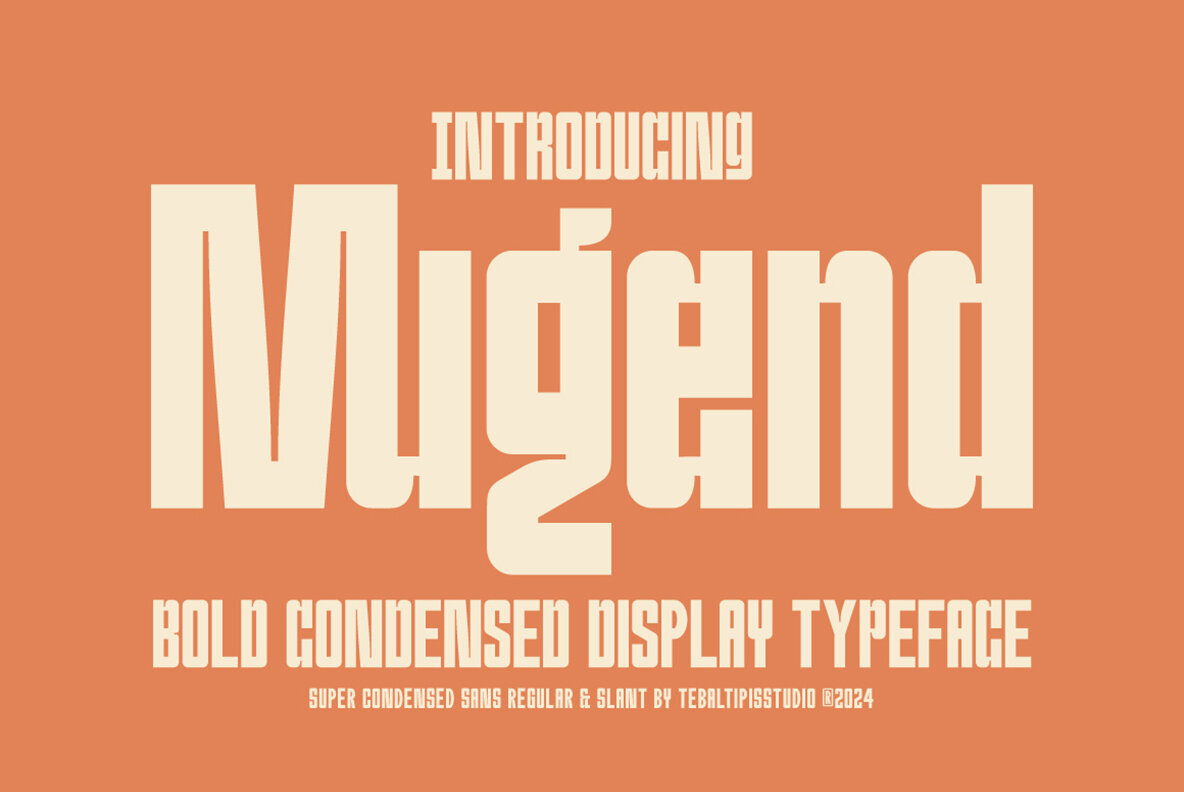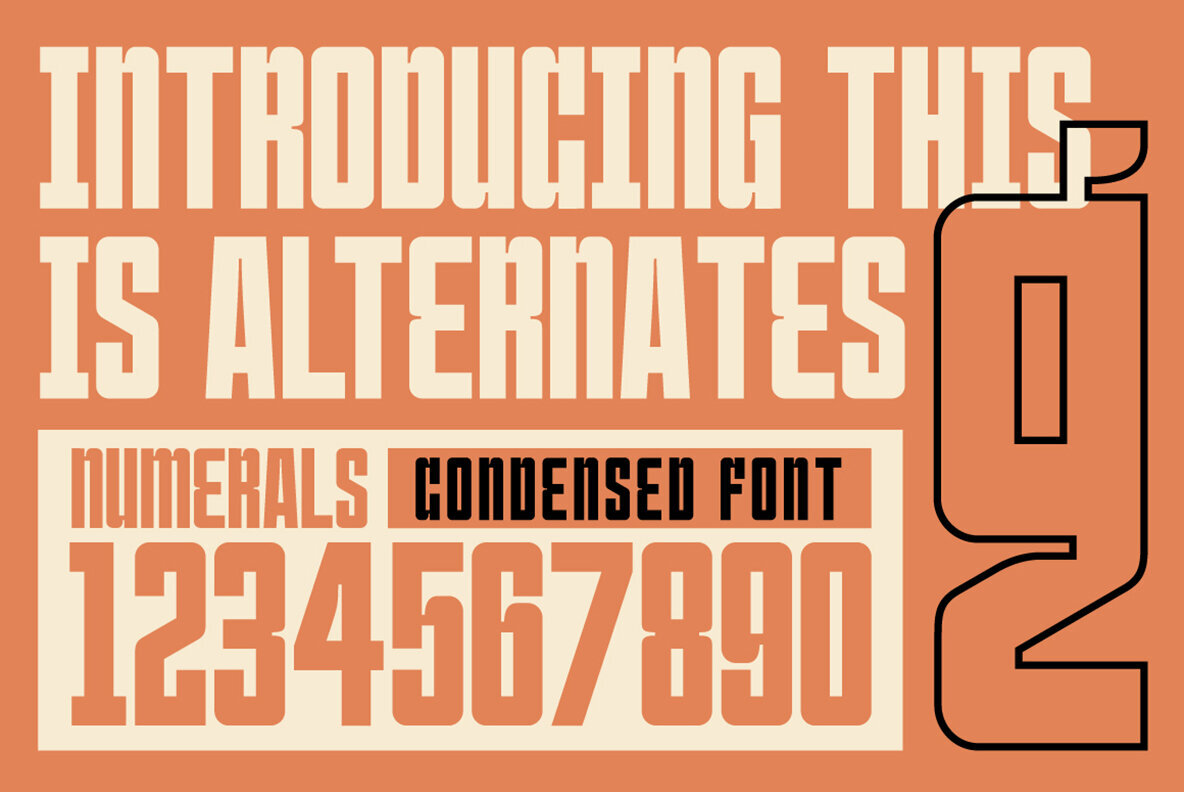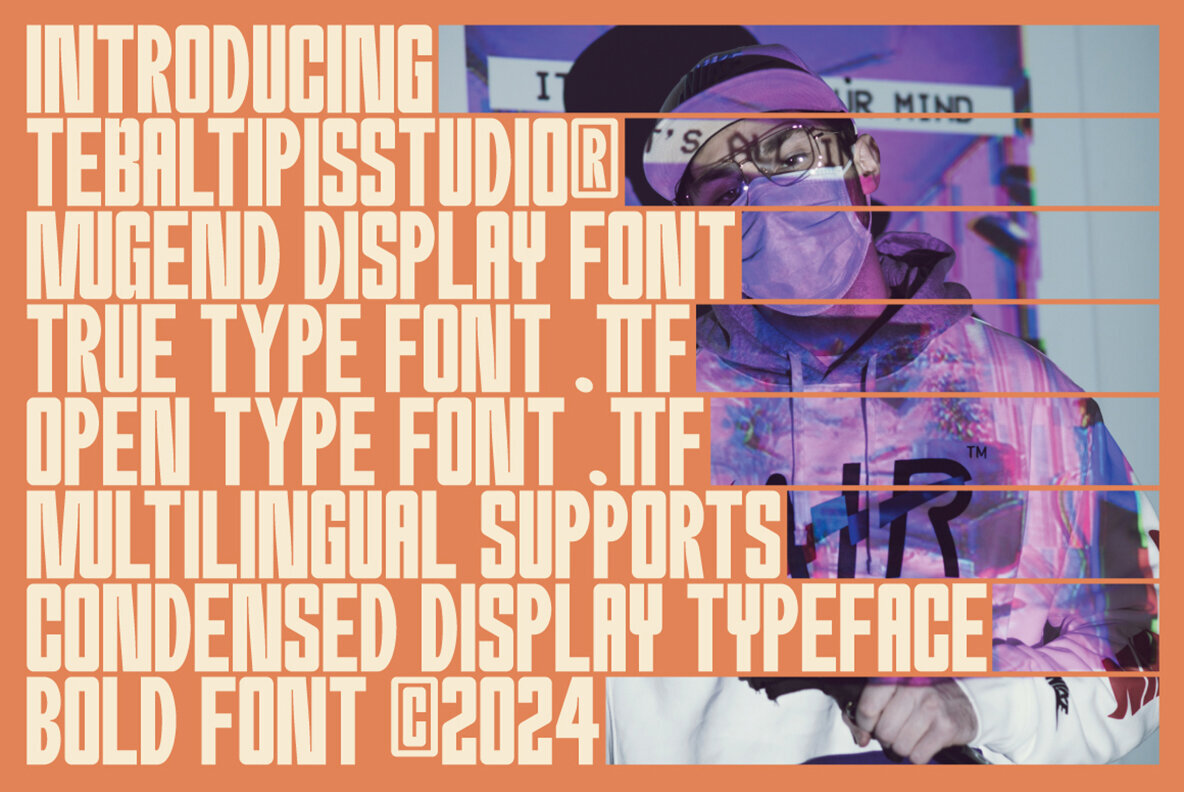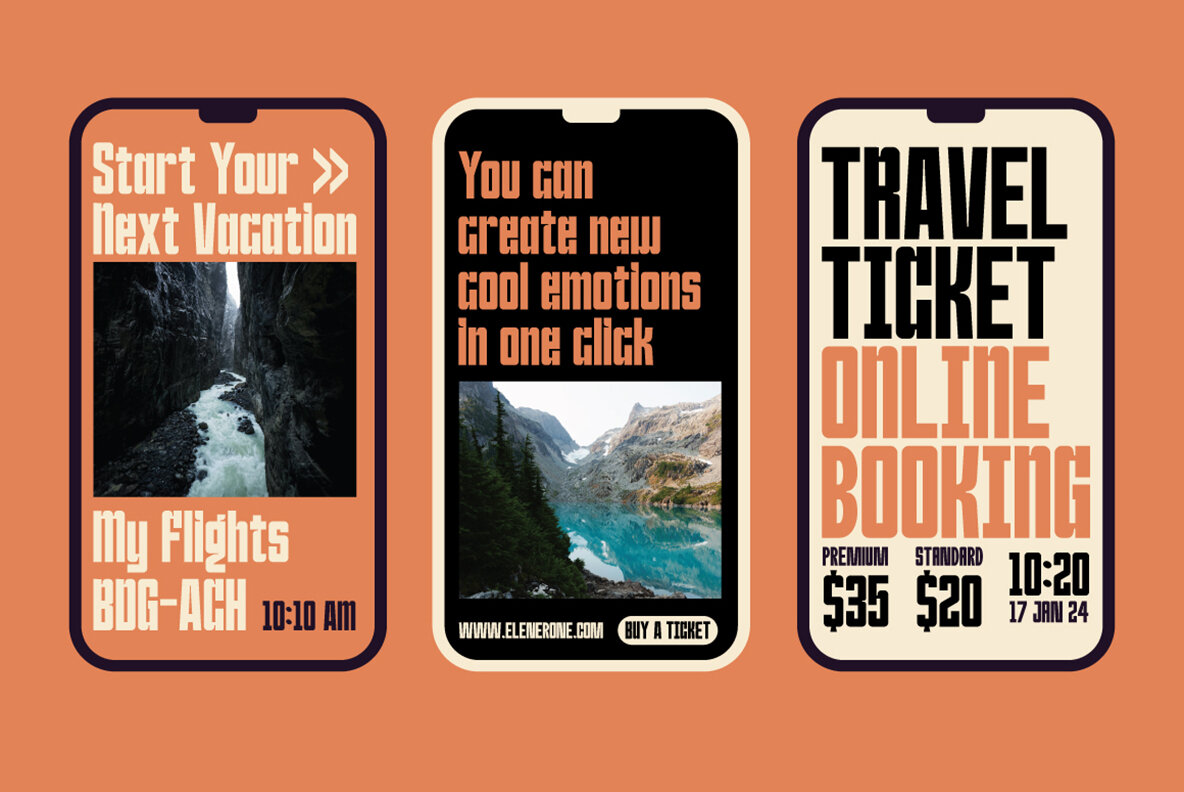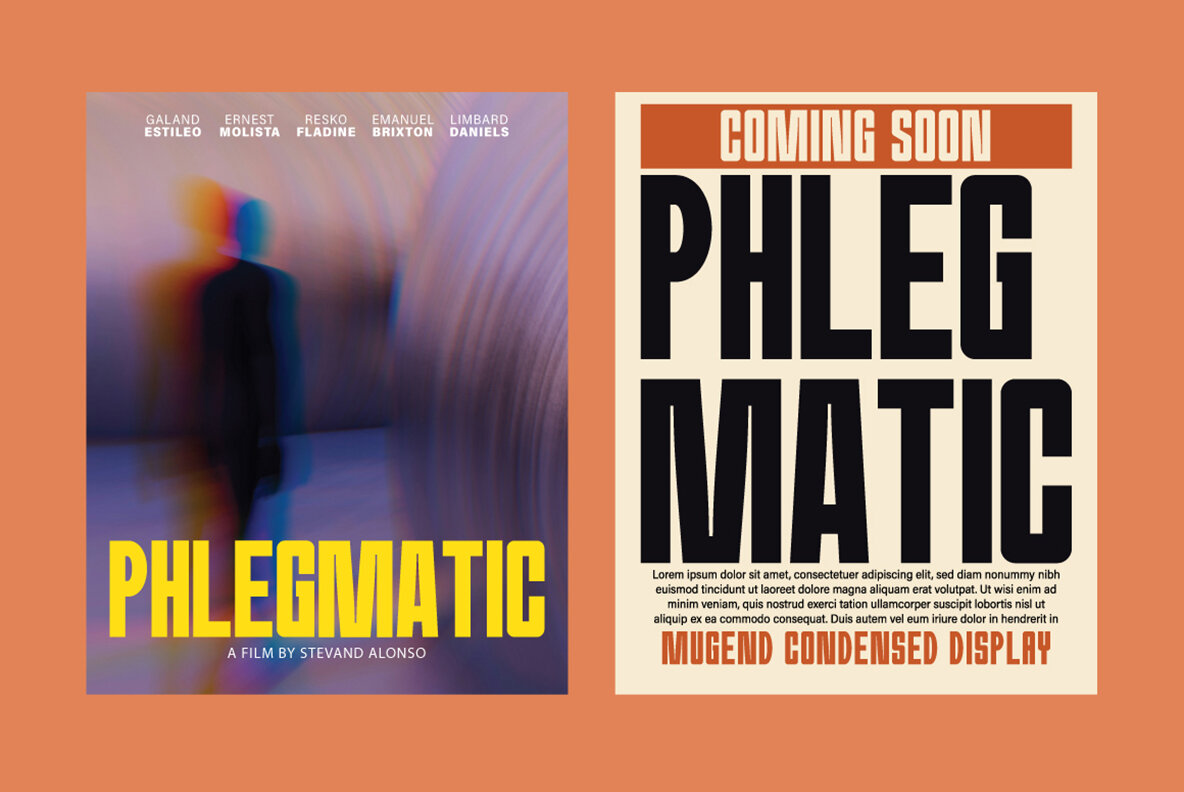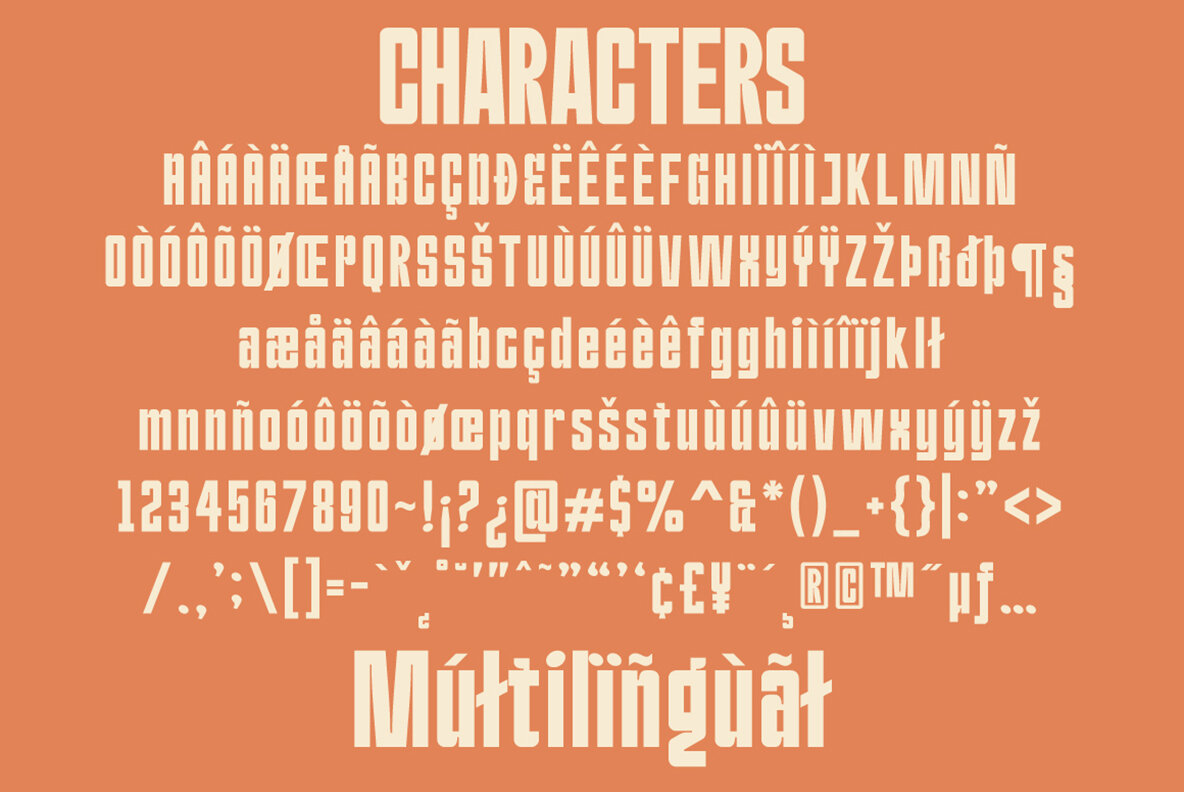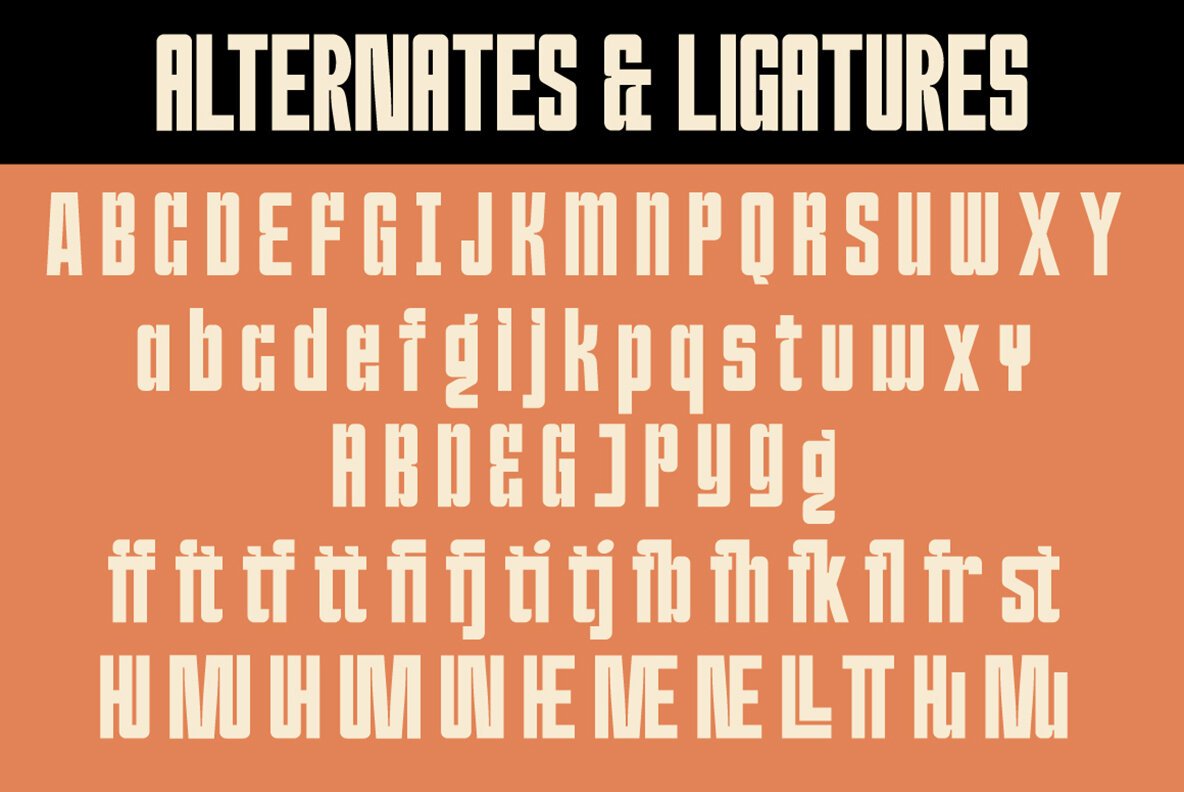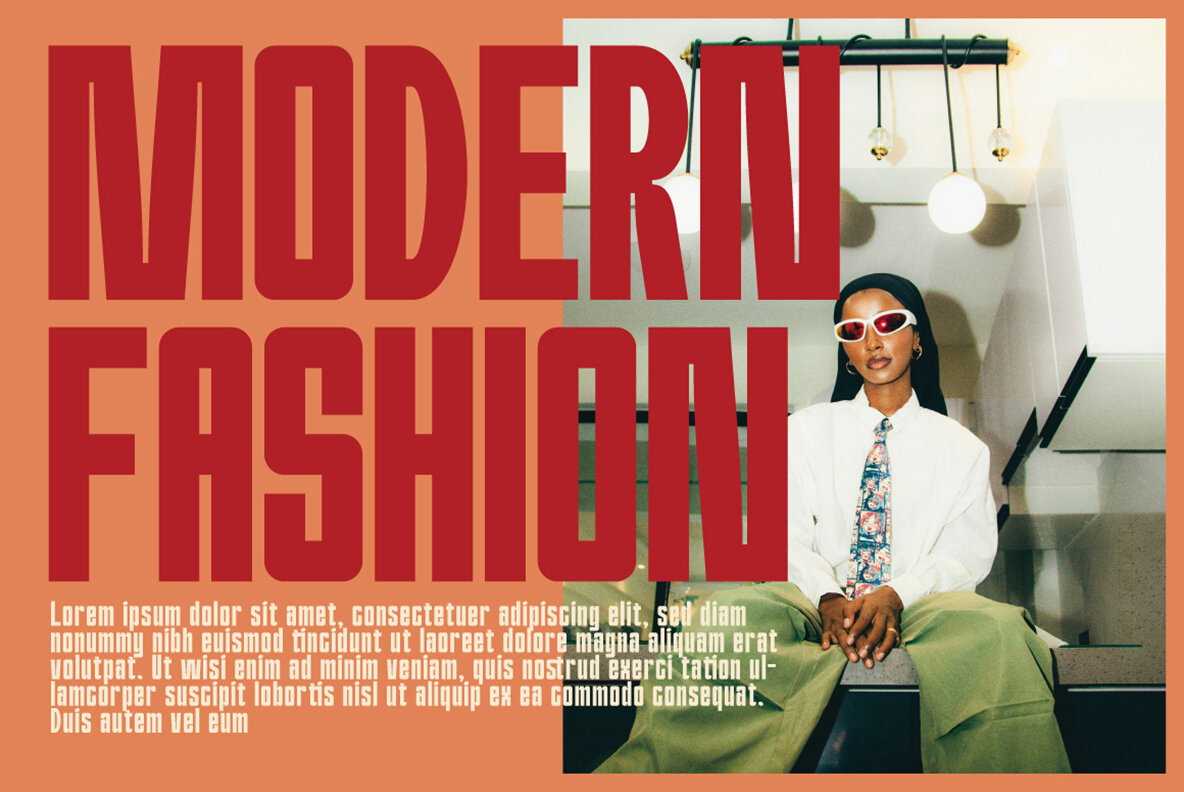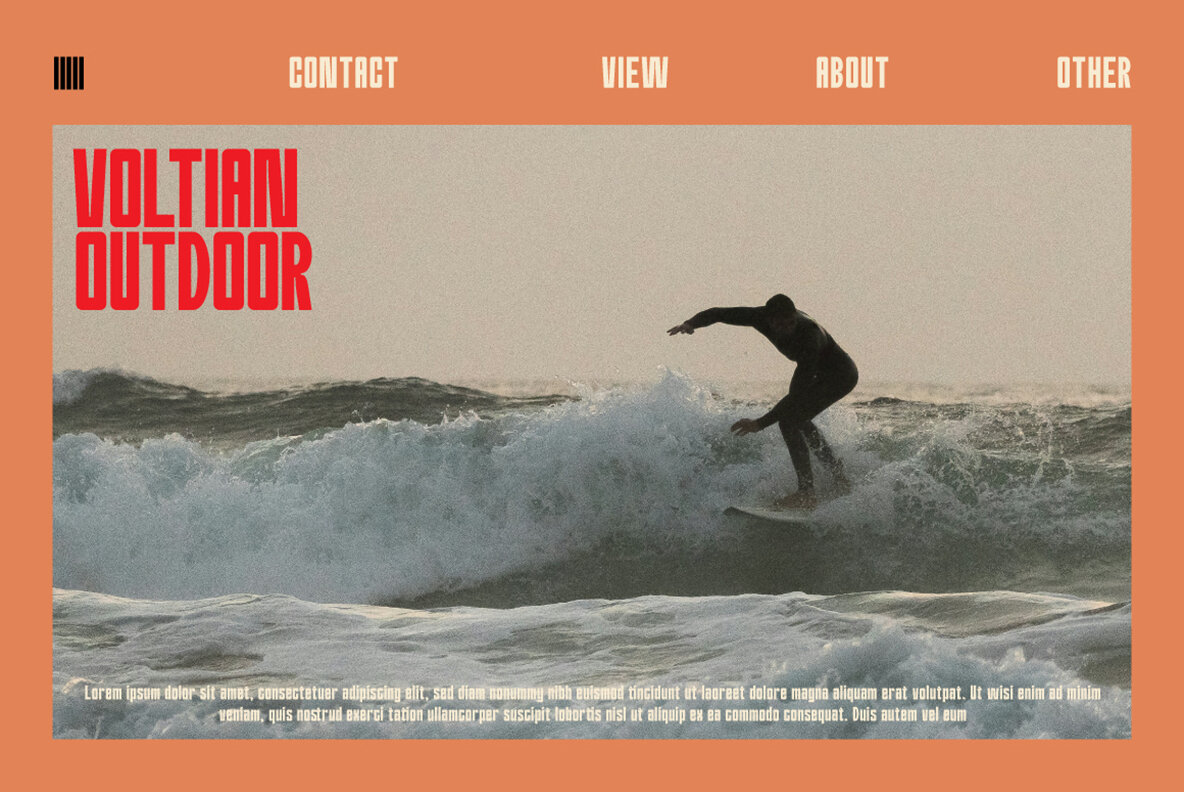
Mugend Condensed Font
Mugend Condensed Display is a bold and narrow font crafted for striking headlines and captivating displays. It offers a modern aesthetic with a touch of retro and vintage flair, making it ideal for designers looking to make a visual impact. This typeface is available in both regular and slant styles, ensuring versatility and attention-grabbing appeal for various projects.
With over 250 glyphs, Mugend Condensed Display provides a wide array of alternative characters through Open Type features such as Swash, Stylistic Sets, Stylistic Alternates, and Ligatures. These features are accessible via Open Type-capable software like Adobe Illustrator, Adobe InDesign, and Corel Draw X, as well as Microsoft Word. Additionally, the font includes PUA Unicode, allowing all alternate characters to be fully utilized without hassle.
Key Features:
- Uppercase and lowercase support.
- International language and symbol compatibility.
- Comprehensive punctuation and numeral sets.
- Standard and discretionary ligatures.
- Stylistic alternates and sets.
Mugend Condensed Display is perfect for professionals seeking a typeface that confidently stands out in modern design projects.